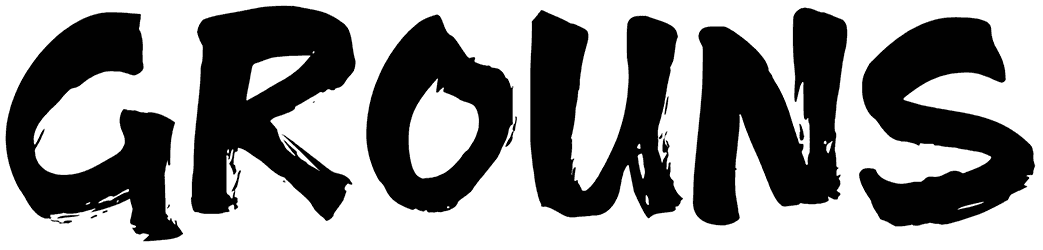
The Deliver Font
“Talent is everywhere, the opportunity is not,” so you better not waste your time running a professional typography design. Here, a brush font with an inky style is at your service to make the most of it to provide cool headlines.
Nothing can destroy the appeal of The Deliver font, even if it leaves out lowercase letters. For more of this type, don’t miss our infinite website.